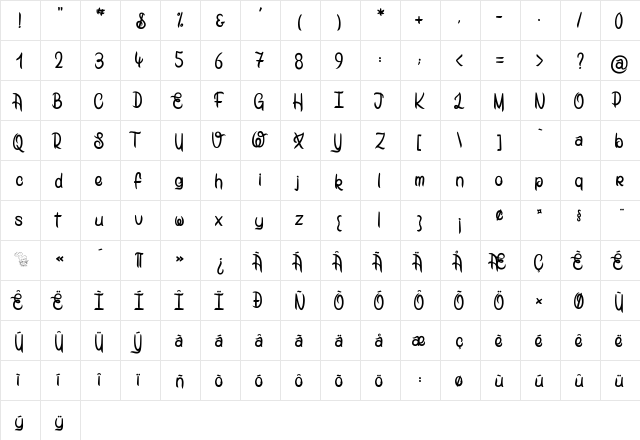
Mad Potato Bill Regular
Design Context for Mad Potato Bill Typeface
Mad Potato Bill is a composed and adaptable typeface that performs quietly and consistently across a wide range of design contexts.